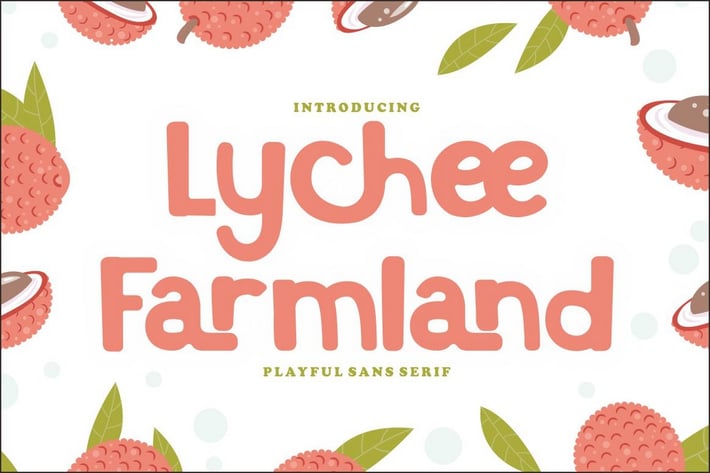
Lychee Farmland - Playful Sans Serif Font
Lychee Farmland - Playful Sans Serif Font. This font is a playful quirky font with a lot of character ligatures, as many as 90 ligatures. With a soft and warm appearance, it is suitable for all ages from children, teenagers and the elderly. This font is perfect for logos, greeting cards, quotes, svg, posters, logos and more.
Come with lot of ligatures character, its help you to make great lettering, quote, logos and. This font is also support multi language.